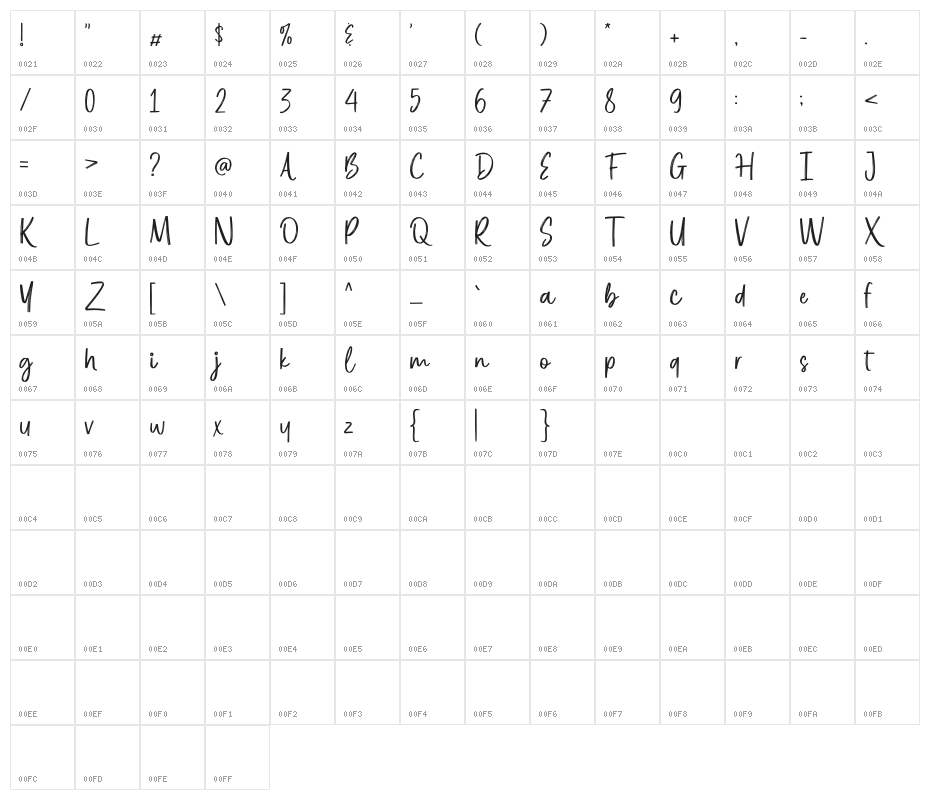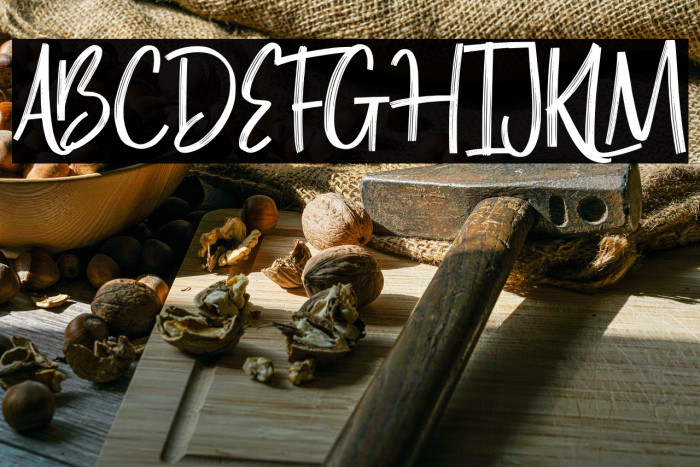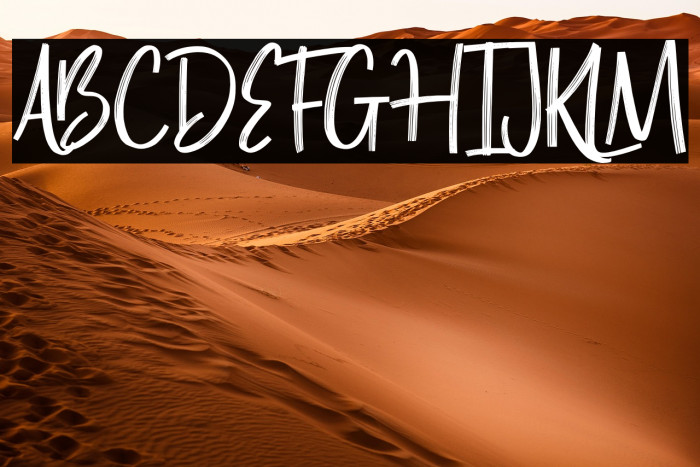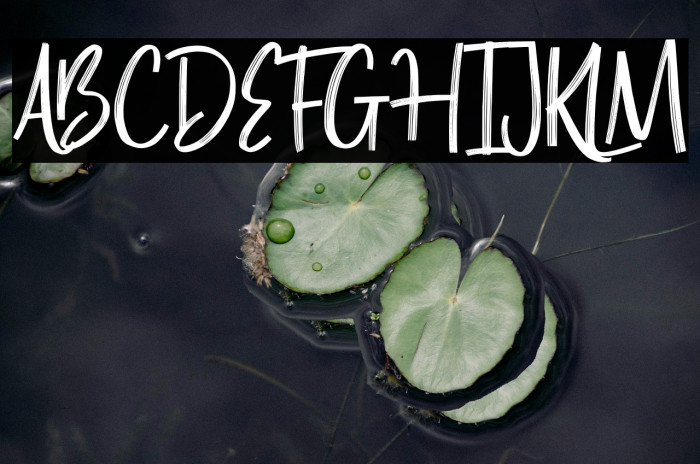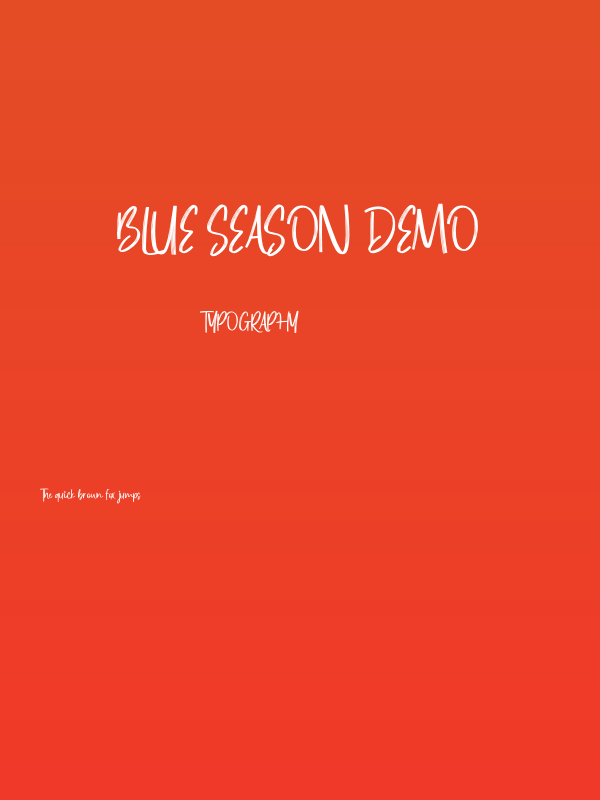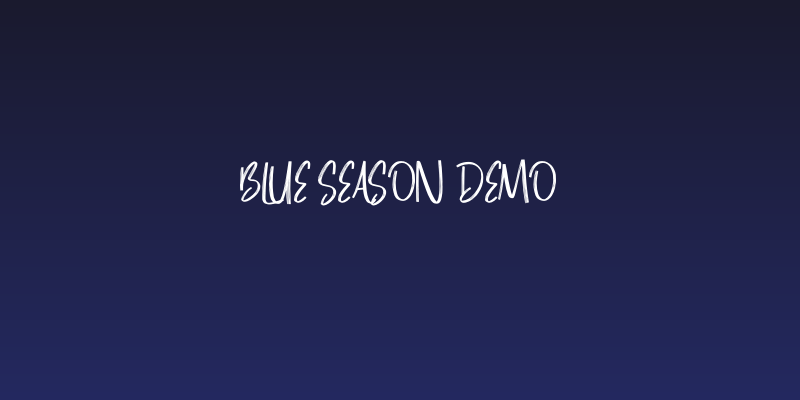
Blue Season Demo Font
Blue Season Demo Description
This font features a playful and dynamic handwritten style, characterized by its fluid and expressive strokes. The uppercase letters are bold and slightly slanted, giving a sense of movement and energy. The lowercase letters maintain a consistent flow, with some letters extending below the baseline, adding to its casual and informal appearance. The numerals are clear and legible, matching the overall style with their slightly exaggerated curves. Special characters are creatively designed, maintaining the font's lively and artistic feel. This font is perfect for projects that require a personal touch, such as invitations, greeting cards, or creative branding.